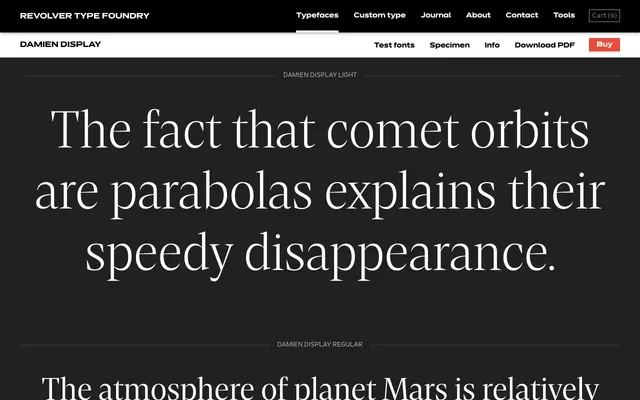
Damien Display
A five-weight display serif from Revolver Type Foundry, pitched at headline and editorial applications.
Five weights from Light to Bold give Damien Display a useful range for titling and large-scale print work. The family appears to be a focused, single-width display offering with no italic or condensed cuts. It suits editorial contexts where a composed, upright display serif is preferred over something decorative or expressive.
Named 'Display' and offered in a weight range typical of display-focused families; the page presents it exclusively as a display typeface, with no text or body cuts mentioned.